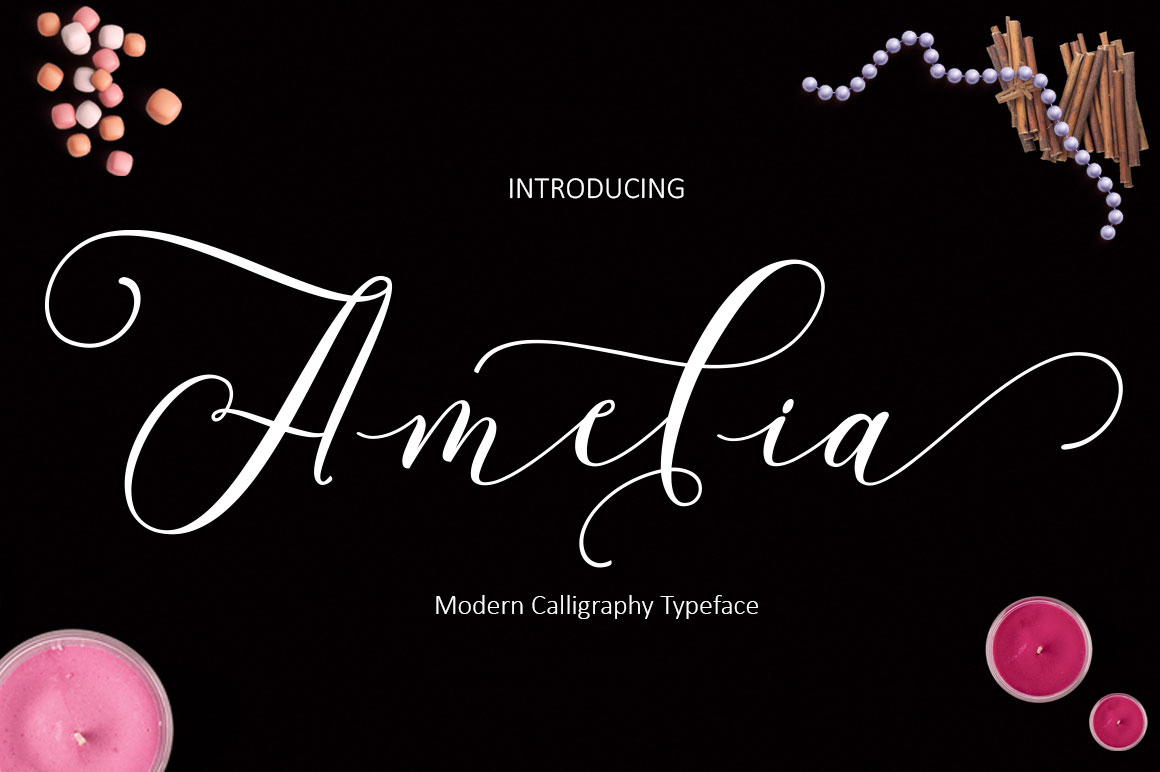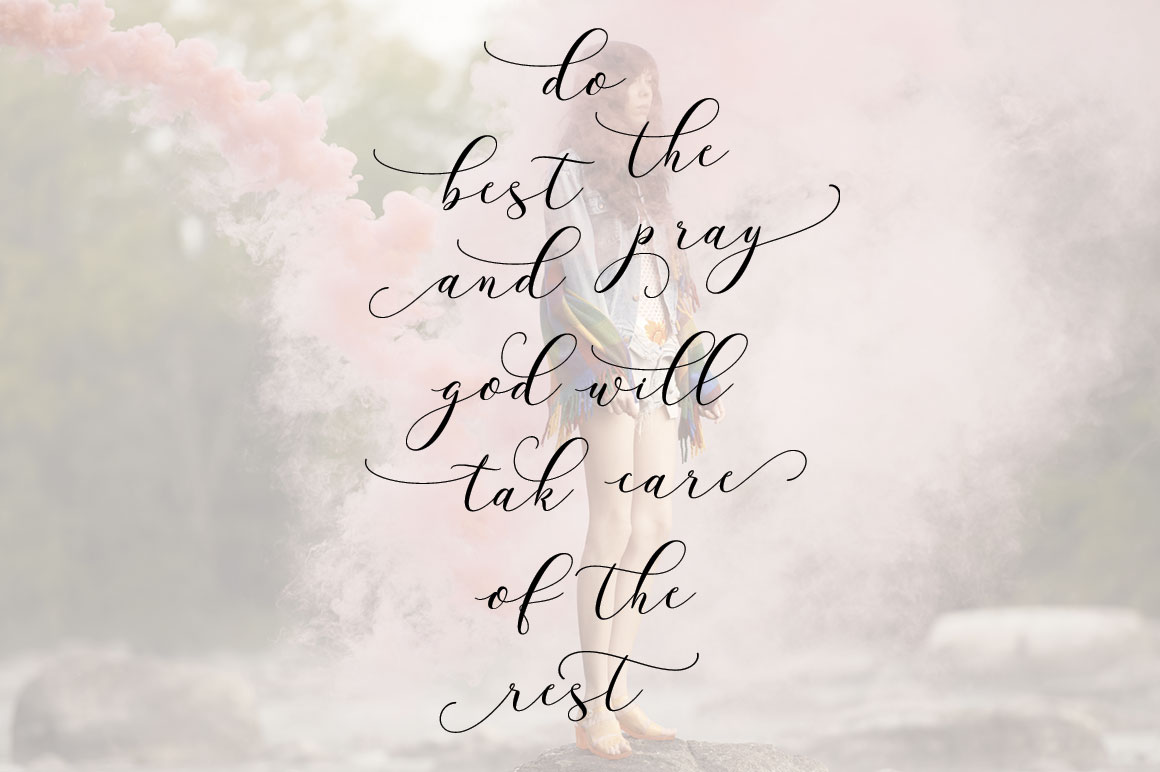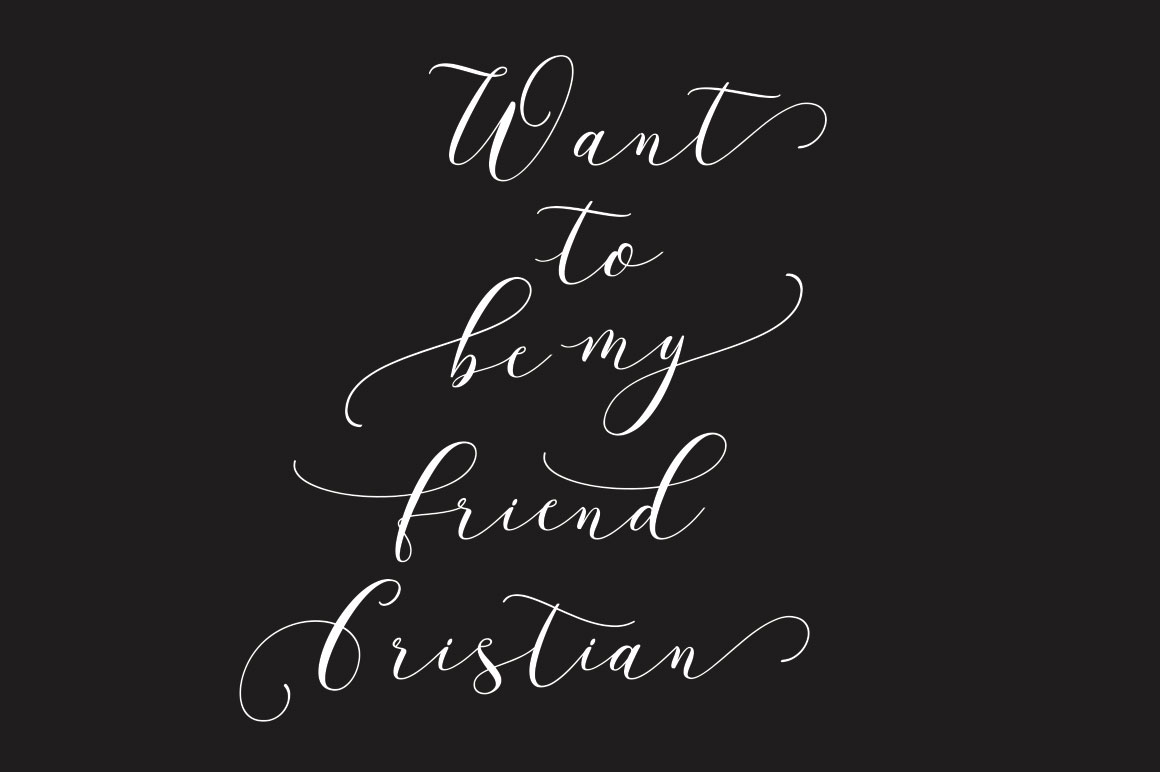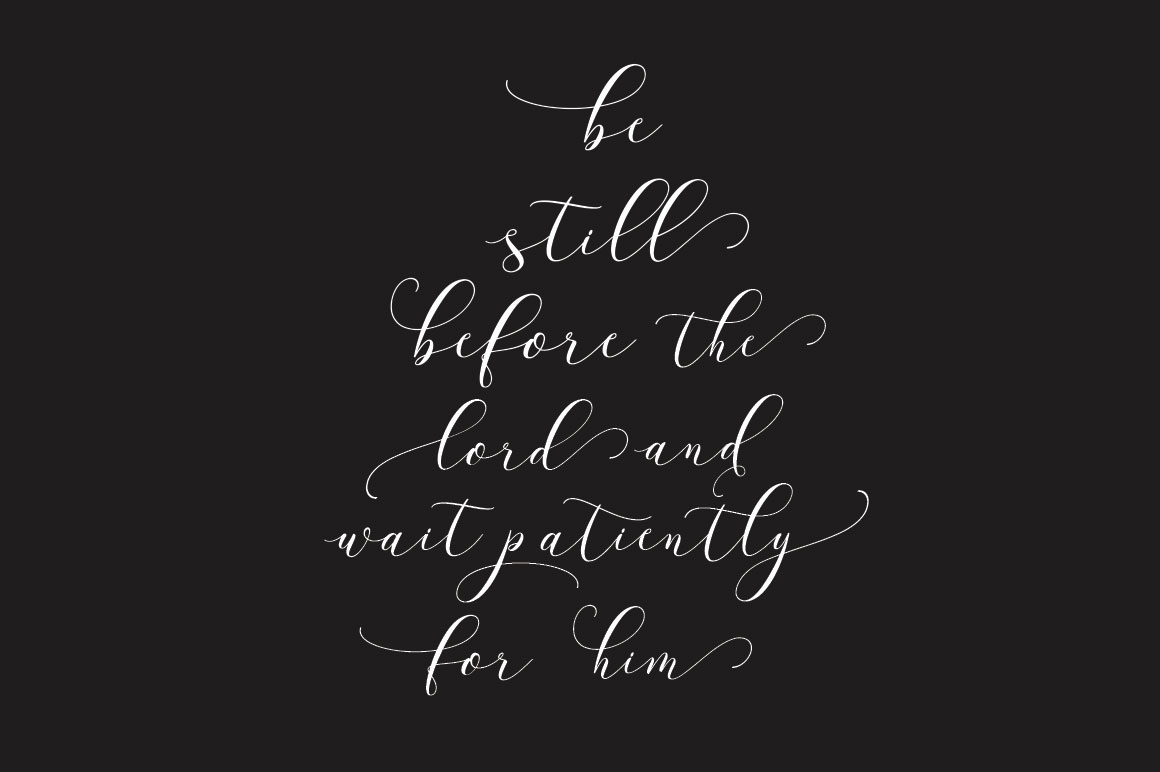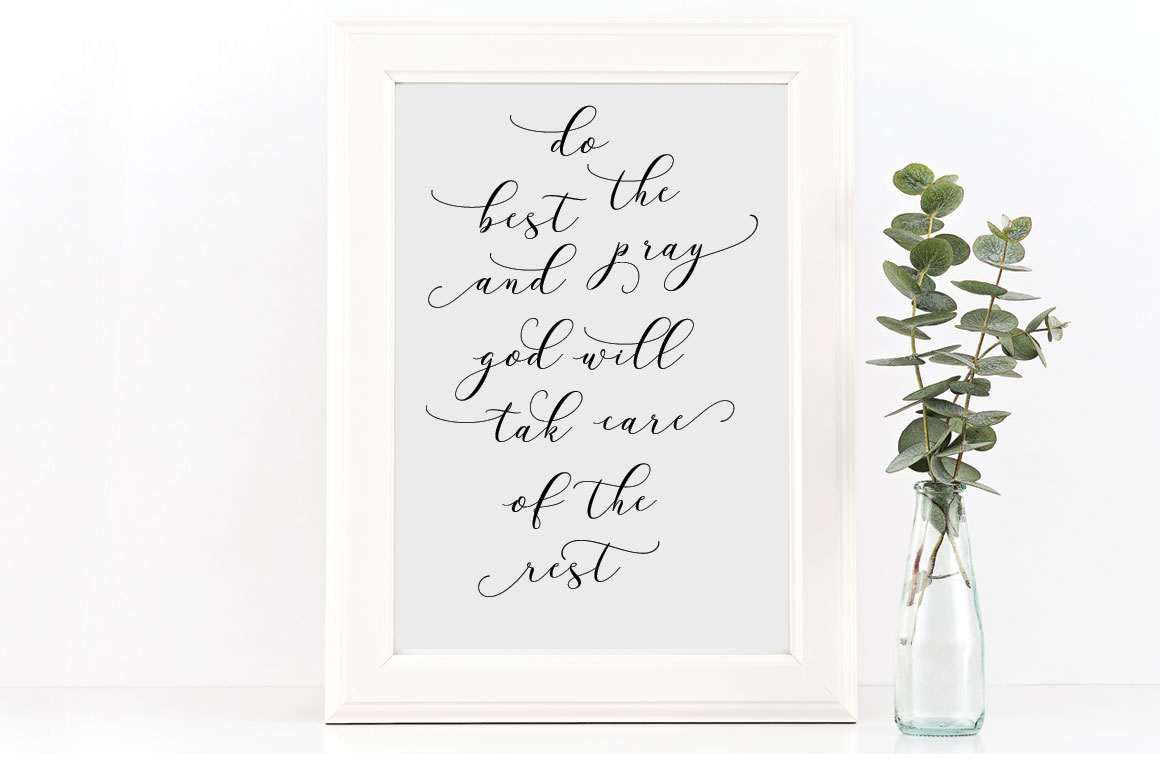
Amelia Script Font
Amelia Script is a handlettered calligraphy font with a beautiful wave and natural flow. Amelia has a soft and smoothe character flow, making it a great choice for signature designs.